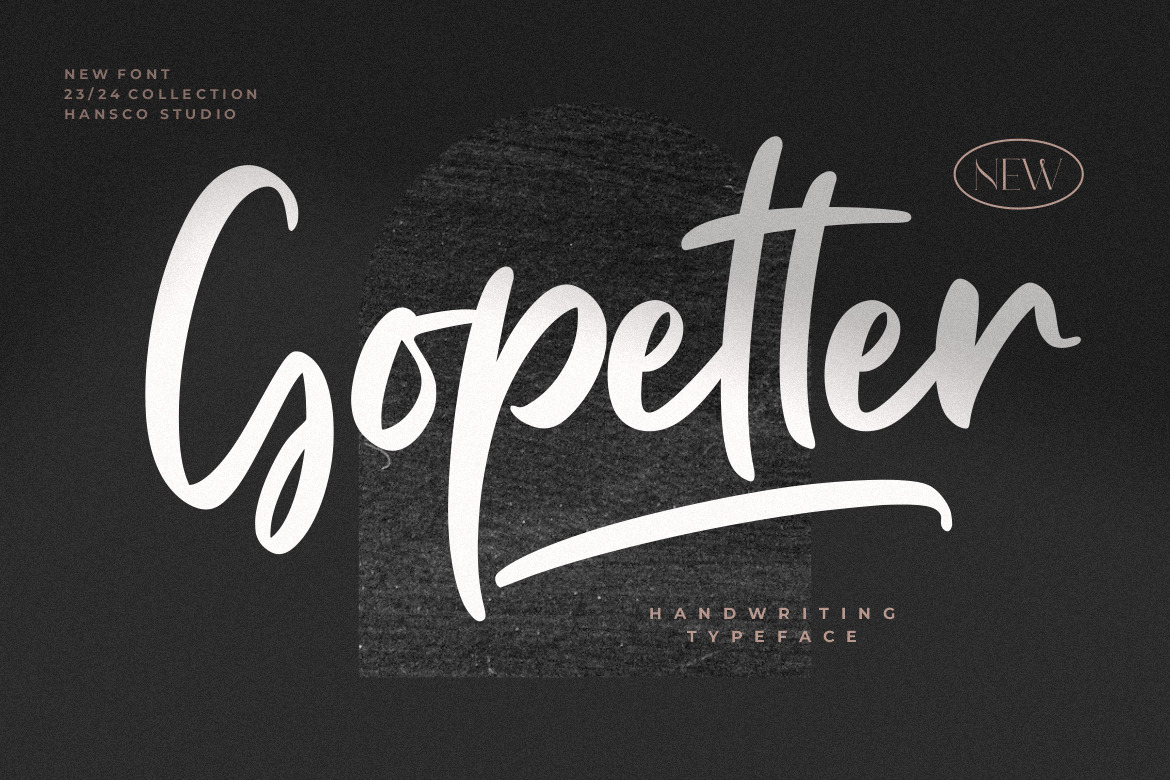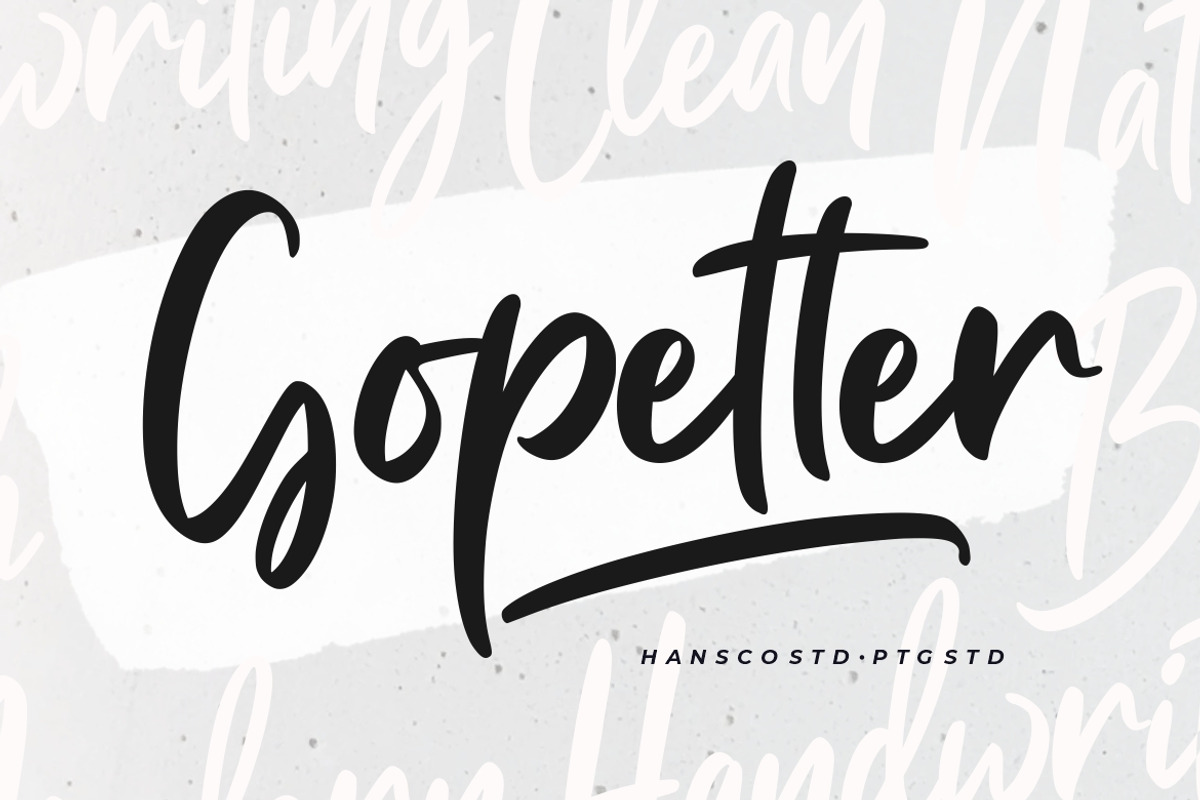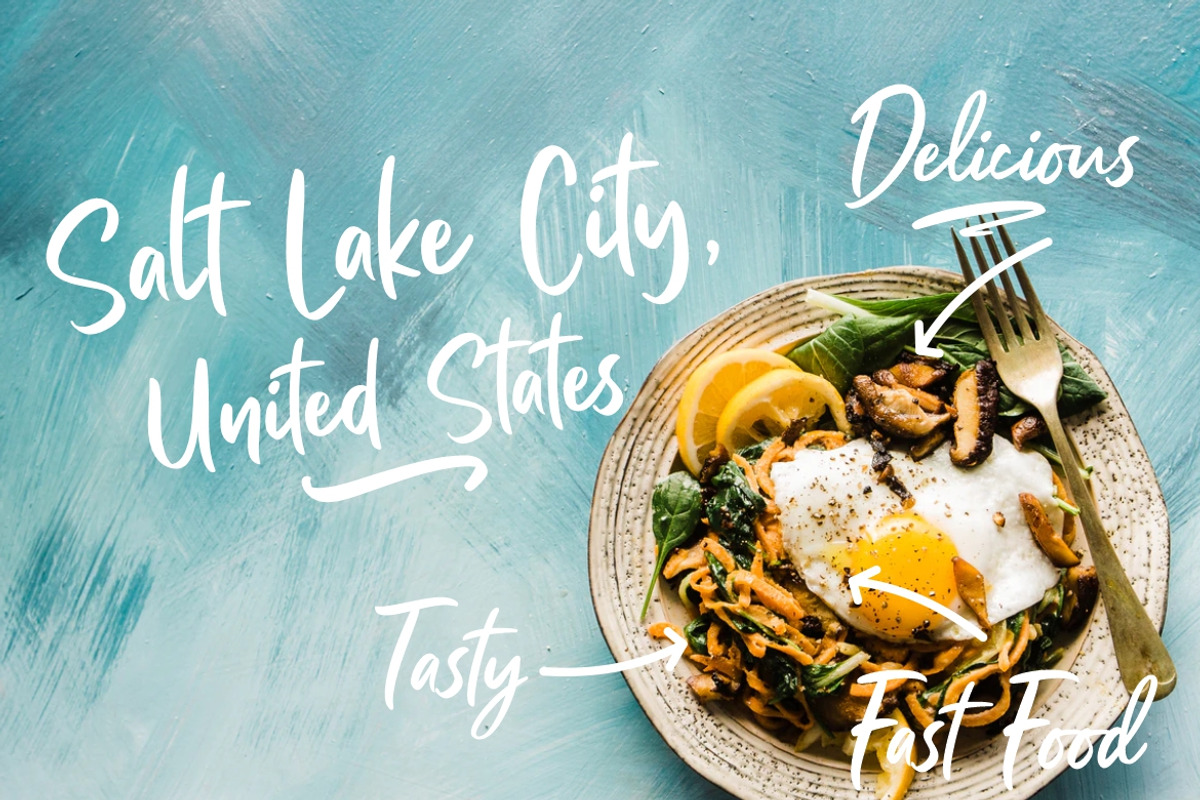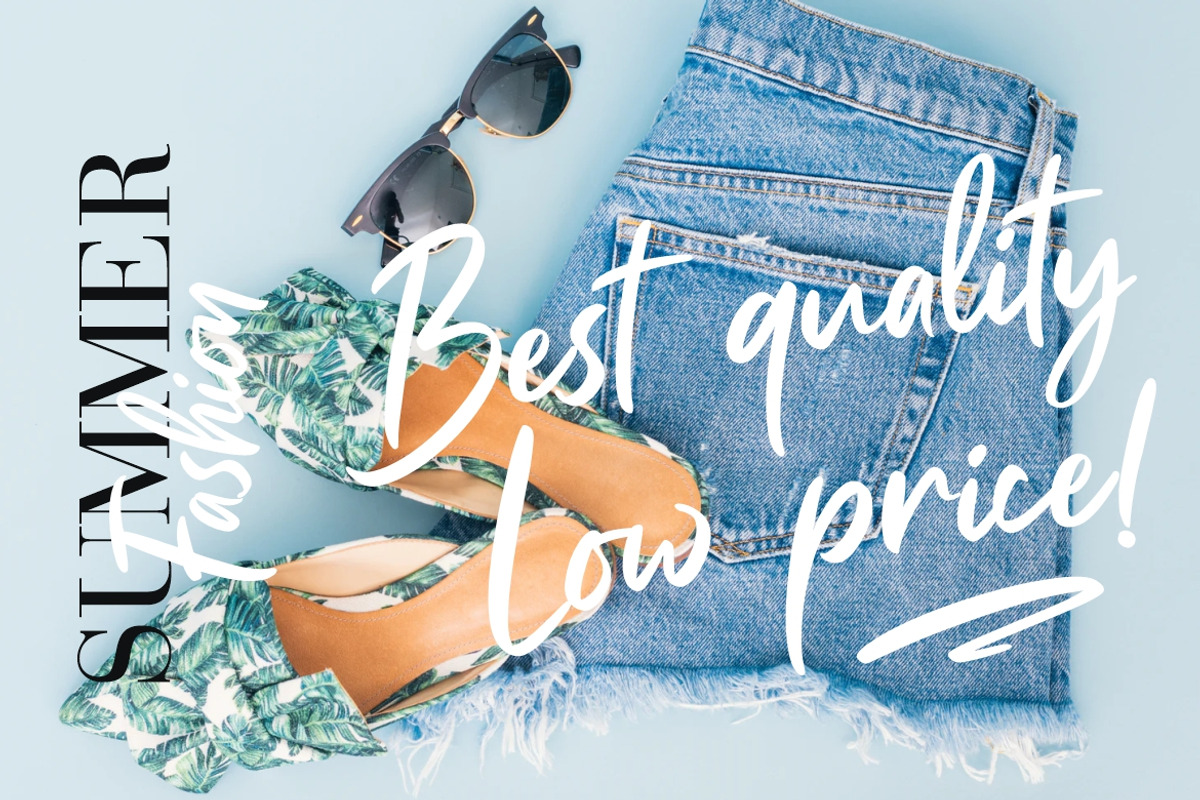
Gopetter Handwriting Font
Gopetter is a casually and quickly handwritten brush script. Letters are made with procreate brush pen on iPad. Then scanned and carefully drawn into vector format. There is just a right amount of texture left so it looks good in small and big sizes. These elements gives modern, clean and elegant. Gopetter font has five sets include with swashes to give some variation for your project. Some projects that are suitable for this font include quotes, menus, taglines, flyers / posters, invitations, greeting cards, posters, business cards, clothing, letters, stationery and many others. Comes with a full uppercase, lowercase, numbers, punctuation and with extensive language support, it's going to be a very usable addition to your project.